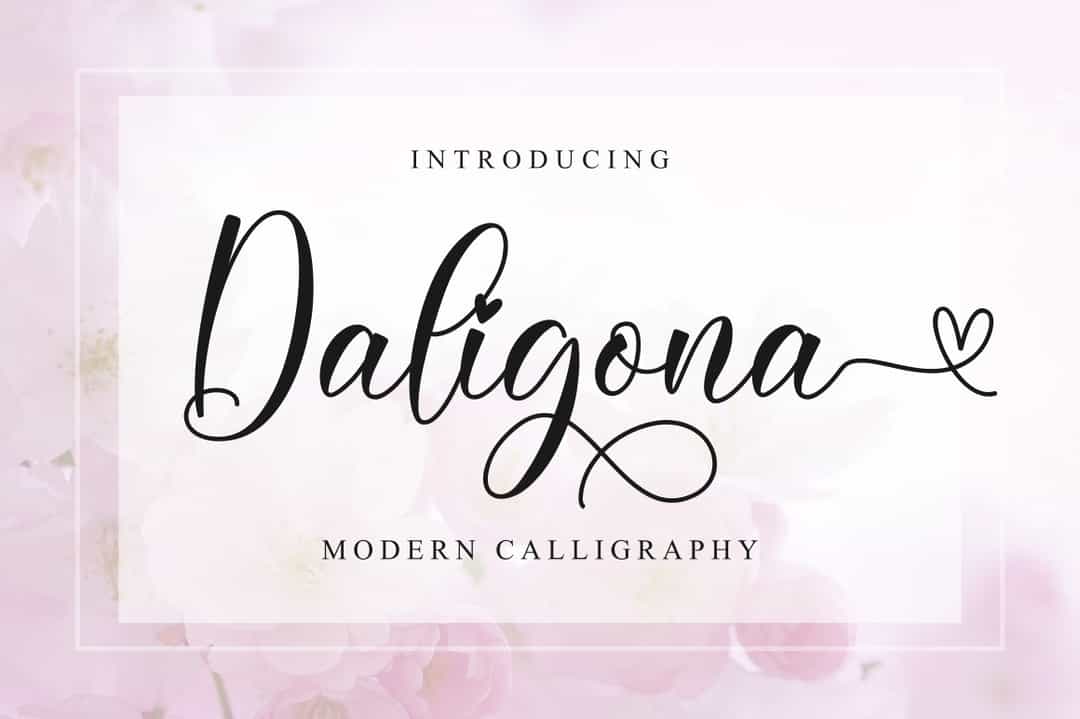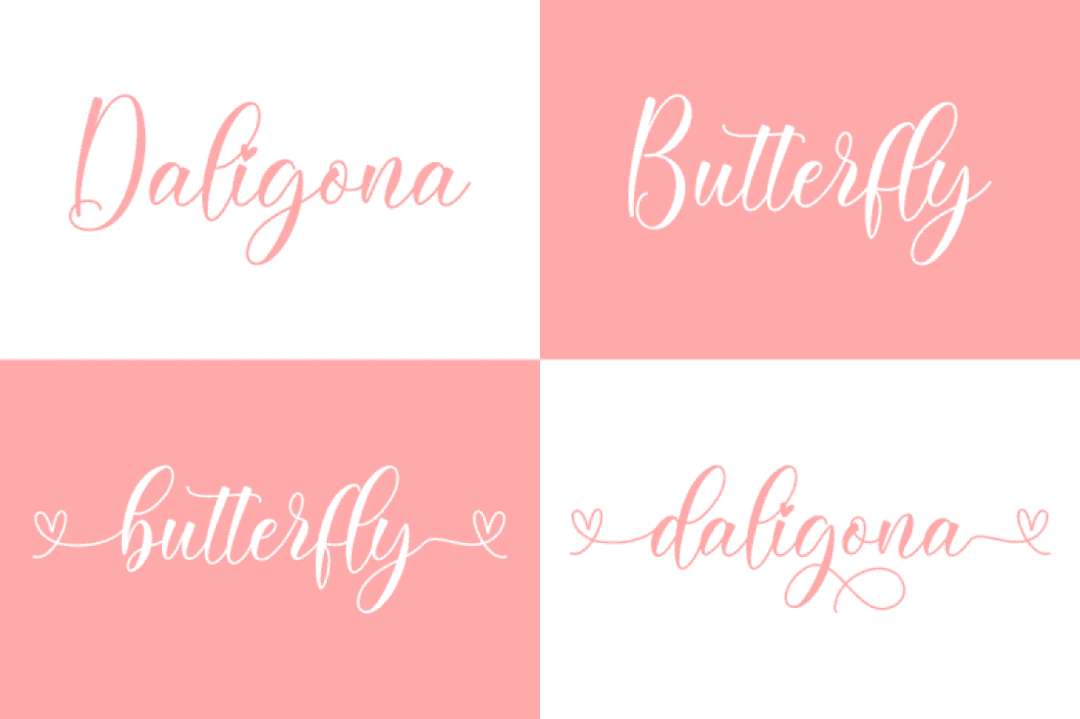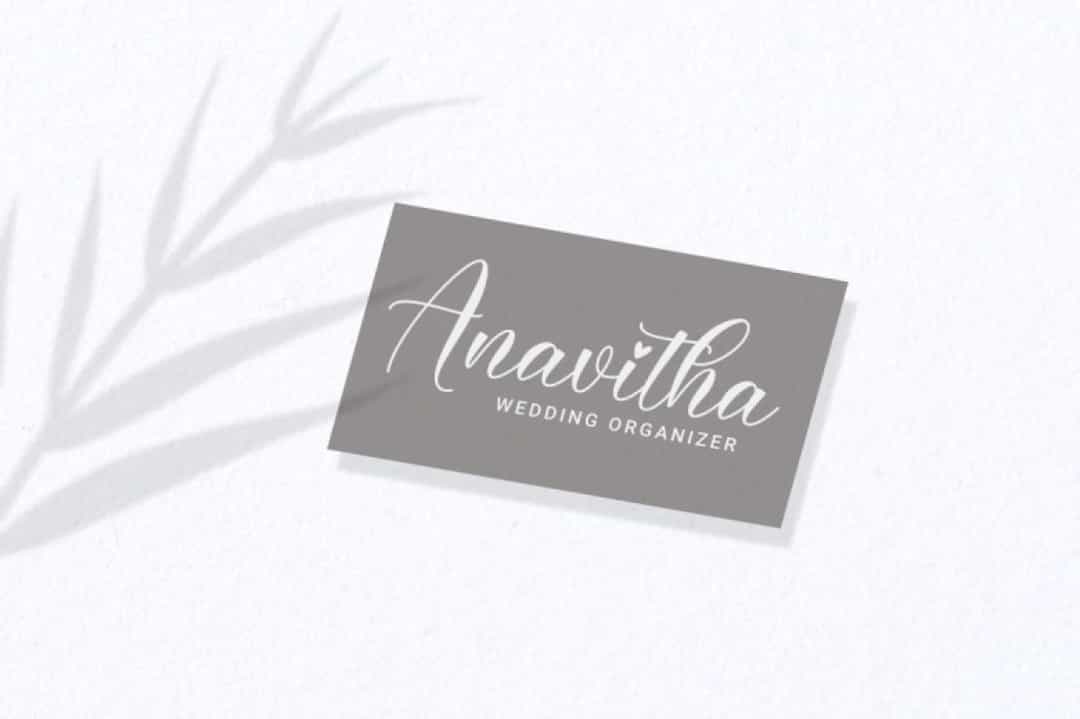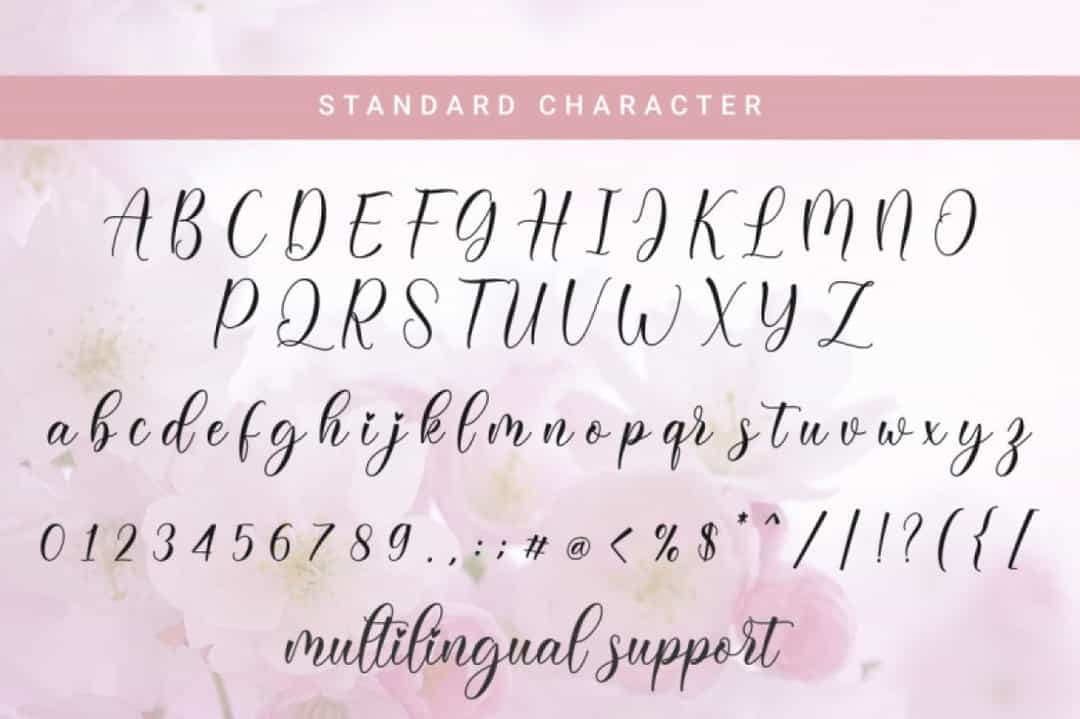
Discover Daligona Modern Calligraphy Script Font, part of the Calligraphy Script collection—a versatile and unique font perfect for adding a personal touch to your projects. Download it for free and enjoy crafting designs with style, from invitations to social media posts. This font is available exclusively for personal use, giving you the freedom to create without limits. Unlock your creativity with Daligona Modern Calligraphy Script Font today!
Daligona is a beautiful and sophisticated Calligraphy font, it has PUA encoded font characters to access all the swashes and glyphs. Using a more balanced baseline and having smooth curves, beautiful alternatives and the strong glyphs – Daligona can transform every concept into great art!